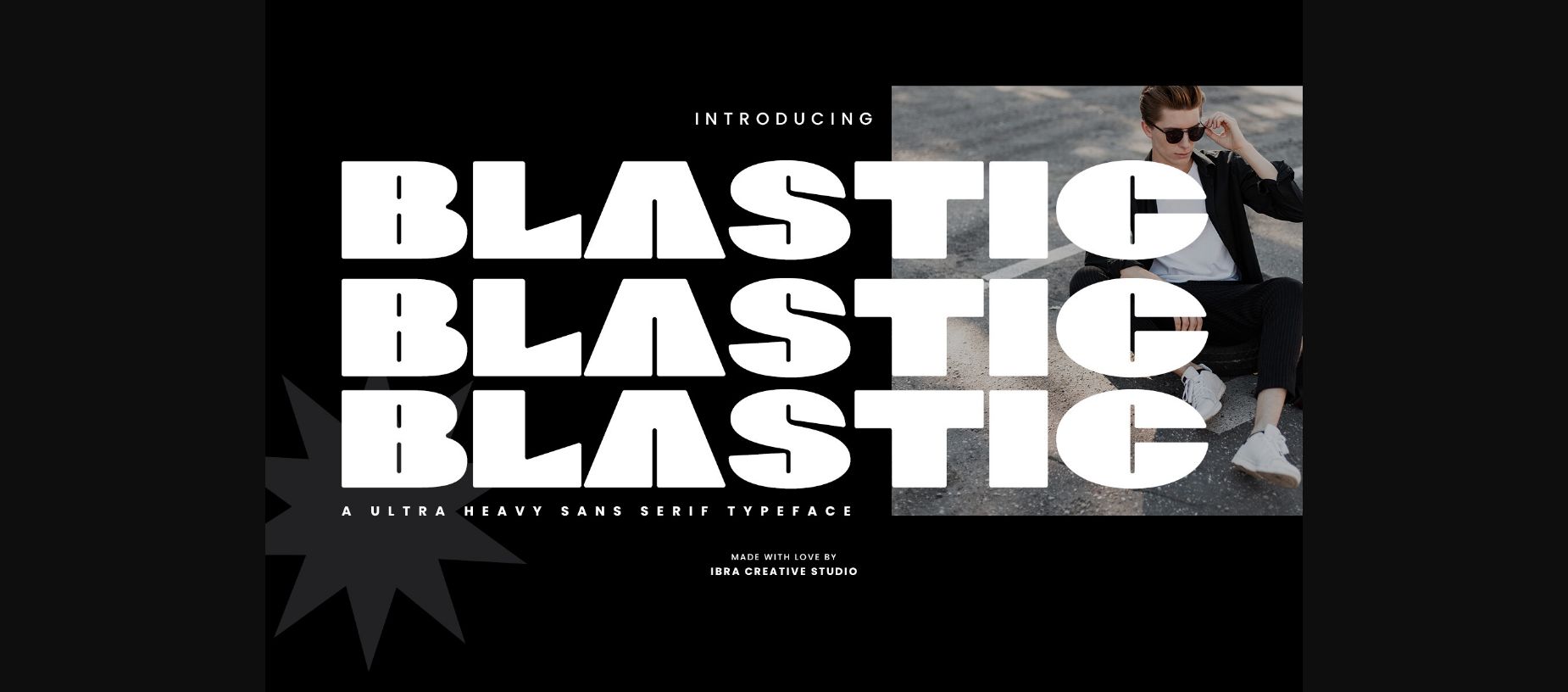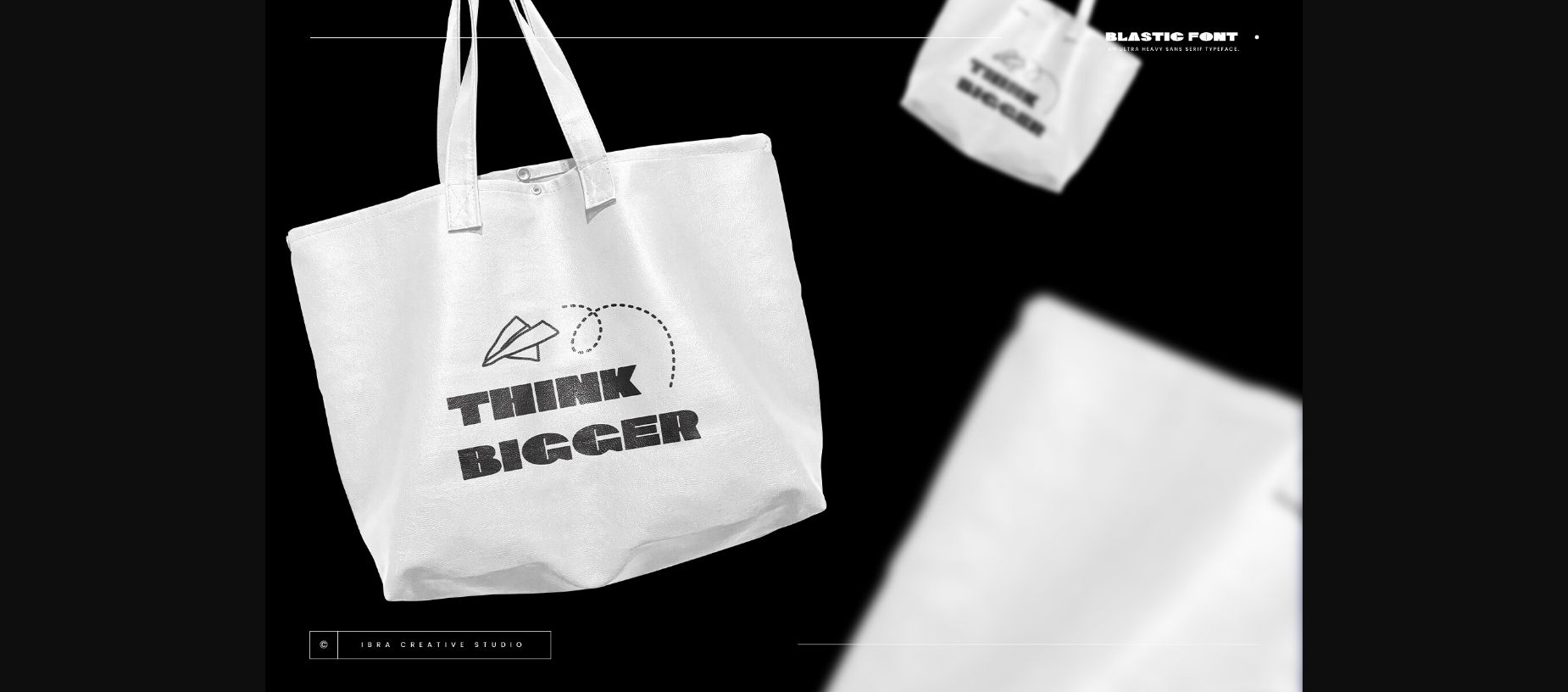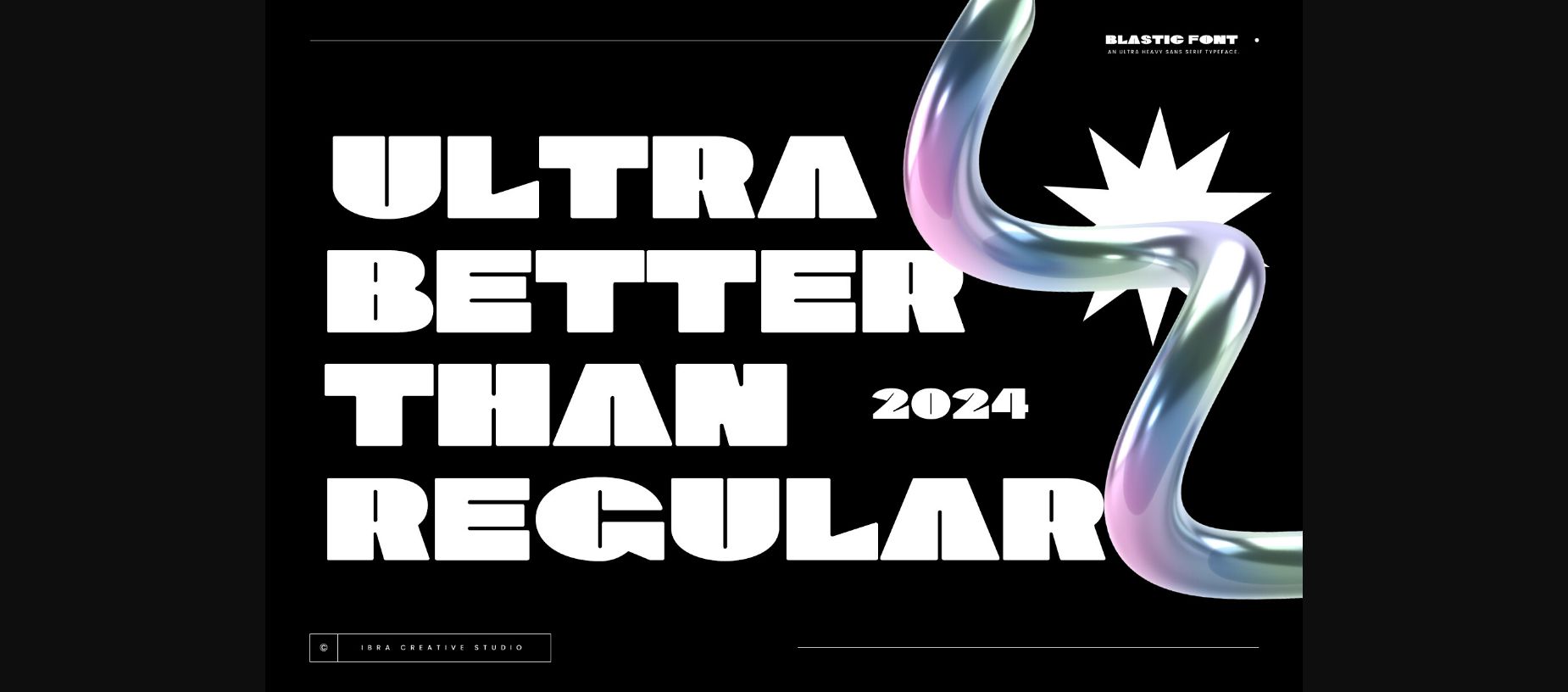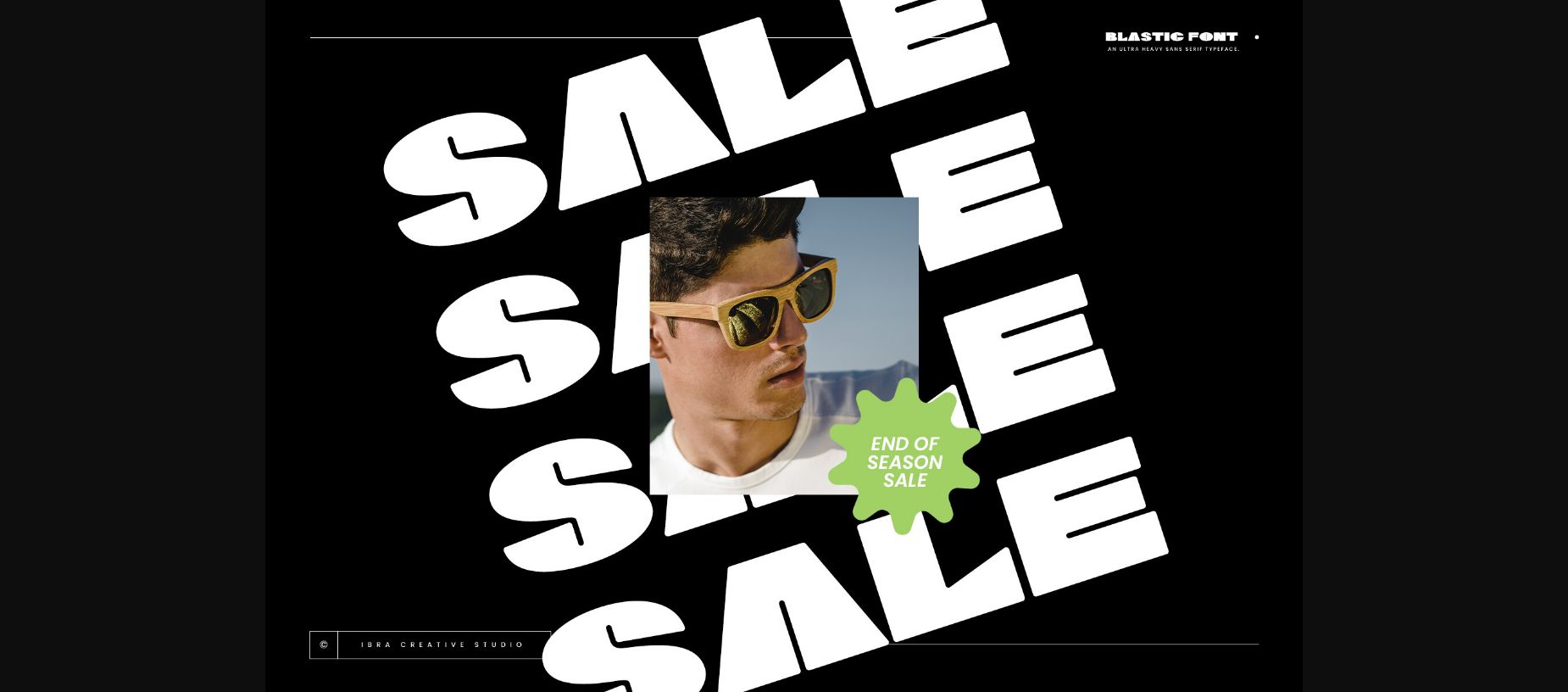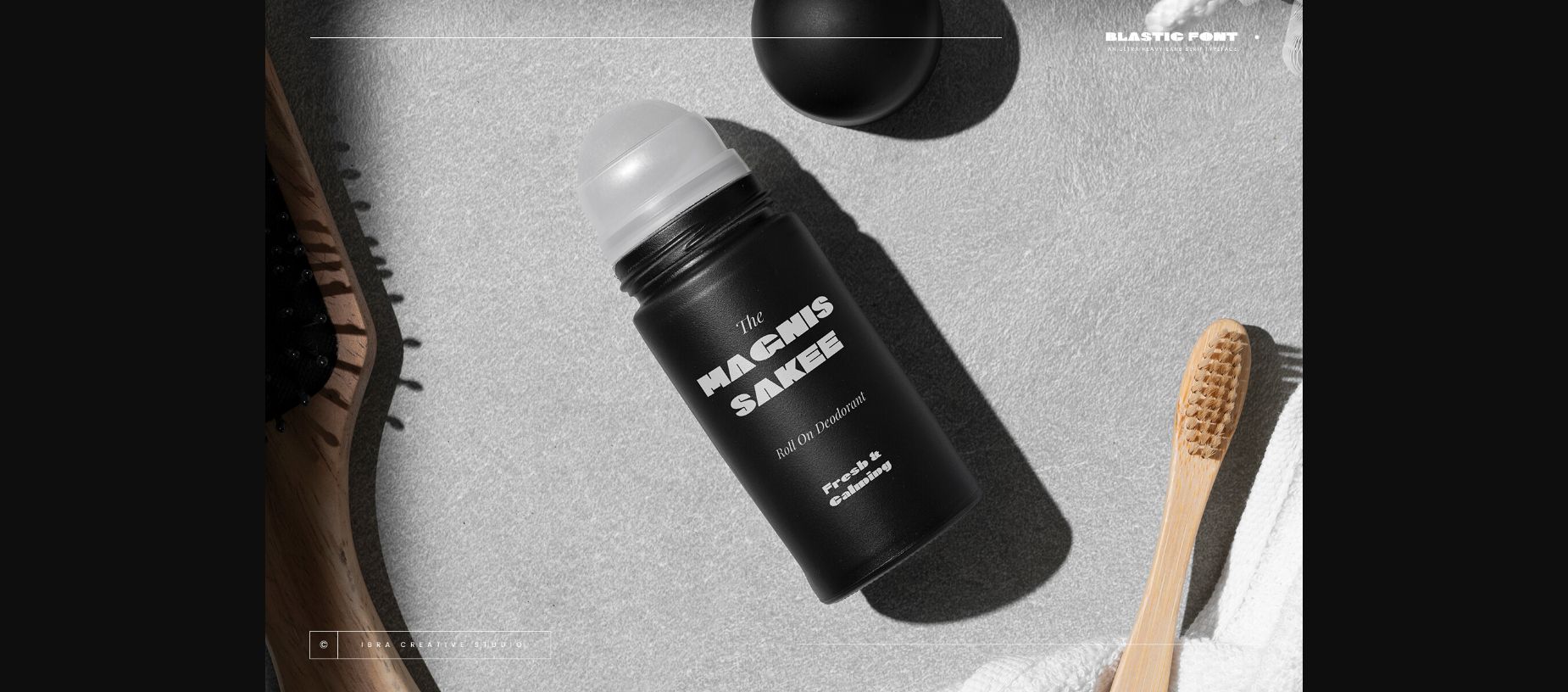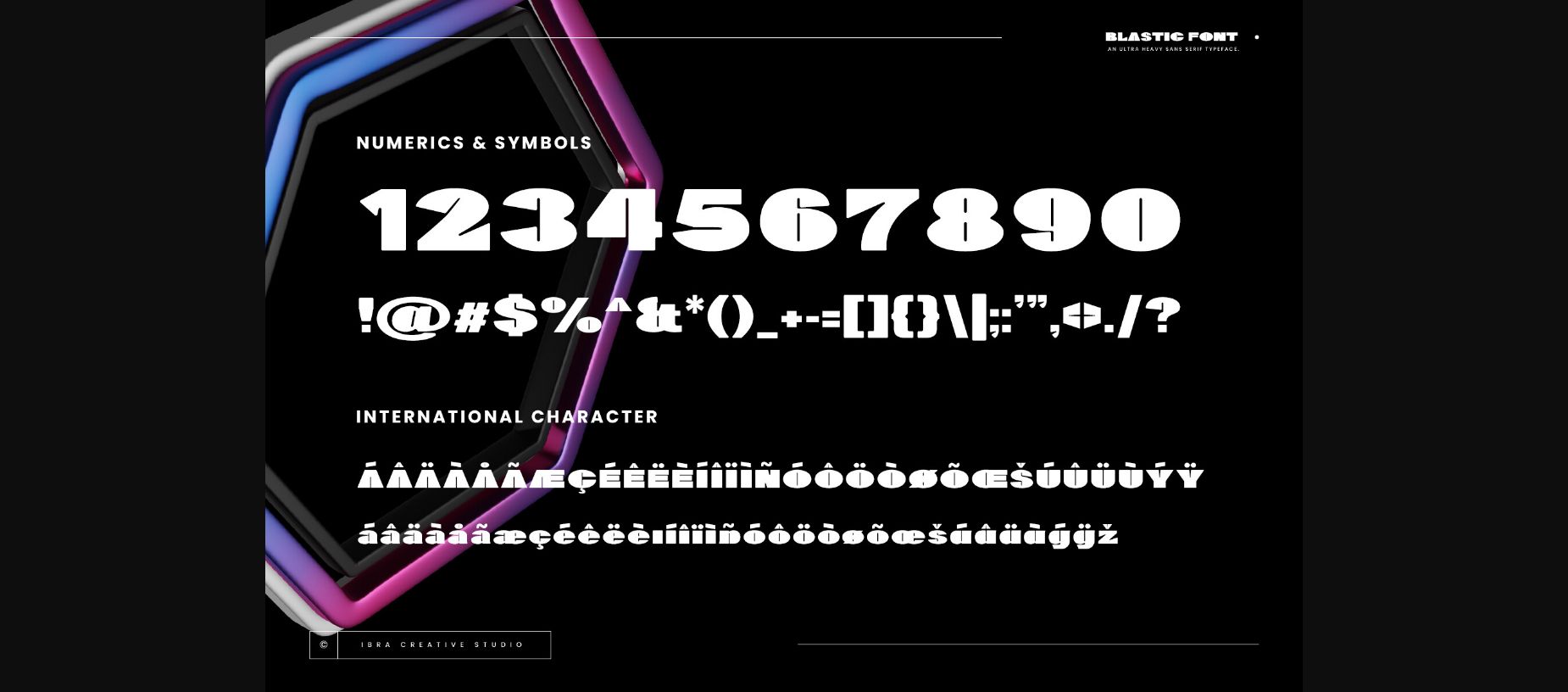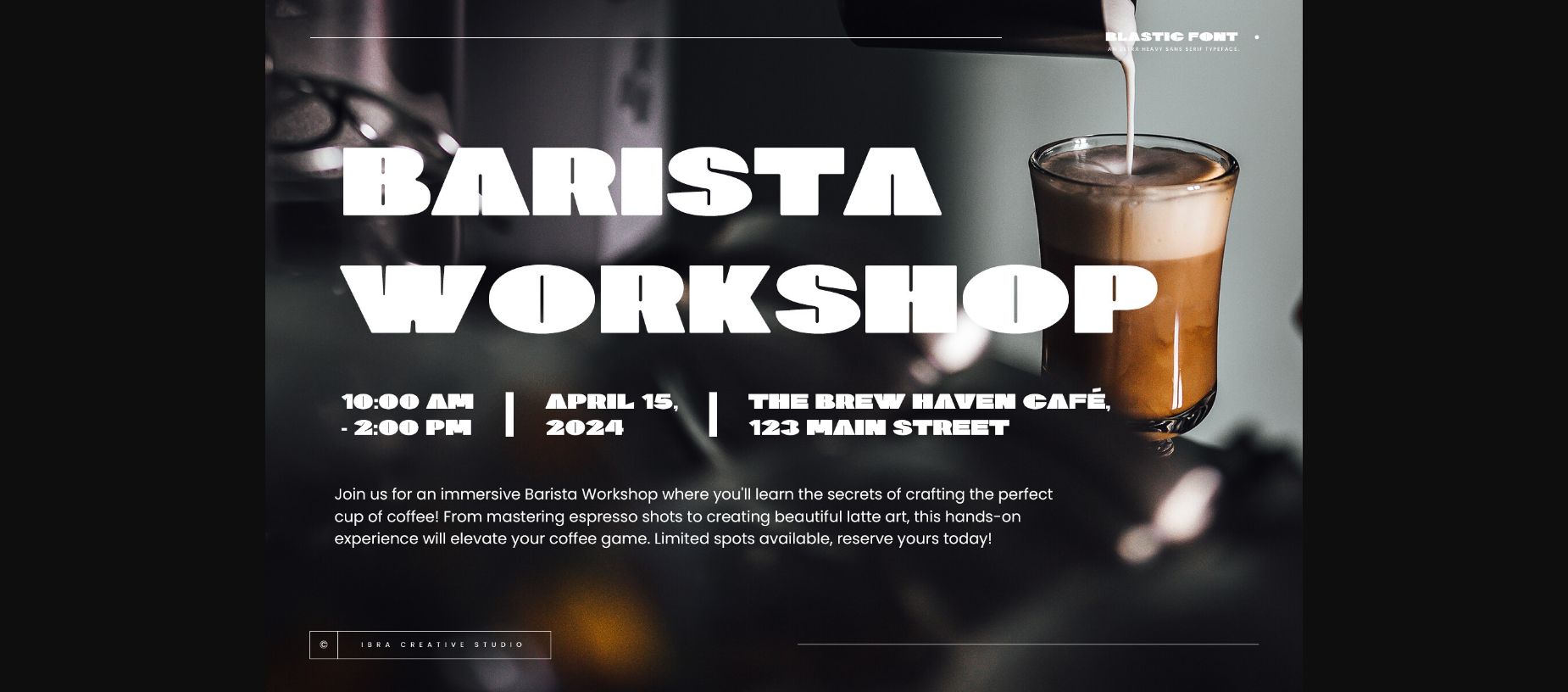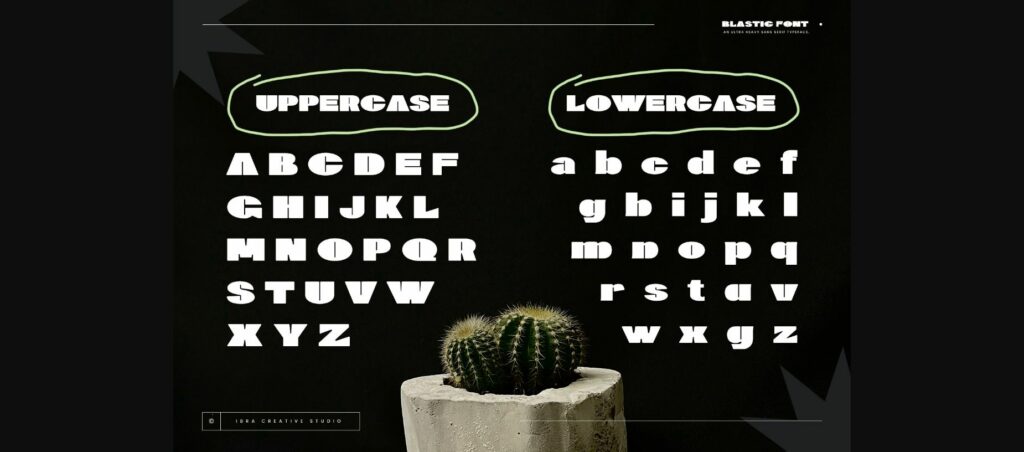
Blastic Font
About Blastic Font
Blastic, an ultra-heavy sans-serif typeface, commands attention with its bold and robust appearance. Each letter in Blastic is characterized by thick strokes and strong, angular lines, conveying a sense of power and authority. Ideal for making a bold statement in headlines, posters, and branding materials, Blastic exudes confidence and strength, leaving a lasting impression on viewers with its impactful design.